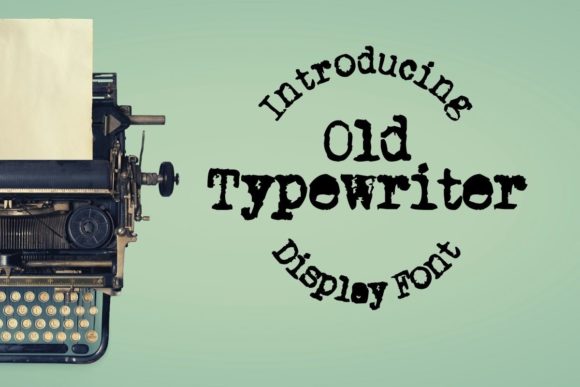
Old Typewriter Font: A Timeless Classic for Your Creative Projects
The Old Typewriter Font is a display font that has been crafted to evoke the nostalgia of a bygone era. With its authentic, vintage feel, this font is sure to add a unique touch to all your creative projects. Whether you’re a graphic designer, a writer, or simply someone who appreciates the aesthetic of old typewriters, this font is an incredible asset to have in your library.
The Charm of Old Typewriters
Old typewriters have a certain charm to them. They evoke memories of a time when writing was a more laborious process, but one that was also more personal and tactile. The sound of the keys clacking, the feel of the metal arms moving up and down, and the smell of the ink ribbon are all sensory experiences that are closely tied to the act of writing.
It’s no wonder that many people still romanticize old typewriters, even in this digital age. They represent a connection to the past, a time when writing was a more deliberate and considered process. And it’s this nostalgia that the Old Typewriter Font taps into, allowing you to bring a touch of vintage charm to your creative projects.
Authentic Vintage Feel
So, what sets the Old Typewriter Font apart from other fonts? The answer lies in its authentic, vintage feel. This font has been carefully crafted to mimic the look and feel of old typewriters, with all their quirks and imperfections.
From the subtle wear and tear on the letters to the slight inconsistencies in the font, every detail has been carefully considered to create a truly authentic look. Whether you’re using the font for a headline, a paragraph of text, or a simple caption, it’s sure to add a touch of nostalgia and character to your work.
Uses for Old Typewriter Font
So, what can you use the Old Typewriter Font for? The possibilities are endless, but here are a few ideas to get you started:
- Graphic Design Projects: Use the Old Typewriter Font to add a touch of vintage charm to your graphic design projects, such as brochures, posters, and flyers.
- Writing and Literature: Add a touch of nostalgia to your writing with the Old Typewriter Font. It’s perfect for authors, writers, and poets who want to give their work a unique and personal touch.
- Branding and Identity: Use the Old Typewriter Font to create a unique and memorable brand identity for your business or organization.
- Digital and Print Media: The Old Typewriter Font is perfect for use in digital and print media, such as magazines, newspapers, and online publications.
Benefits of Using Old Typewriter Font
So, why should you choose the Old Typewriter Font for your creative projects? Here are just a few benefits:
- Unique and Memorable: The Old Typewriter Font is a unique and memorable font that will help your work stand out from the crowd.
- Authentic Vintage Feel: The font’s authentic vintage feel will add a touch of nostalgia and character to your work.
- Versatile: The Old Typewriter Font is versatile and can be used for a wide range of creative projects.
- Easily Readable: Despite its vintage feel, the Old Typewriter Font is easily readable, even at small sizes.
Tips for Using Old Typewriter Font
Here are a few tips for using the Old Typewriter Font effectively:
- Use it Sparingly: Use the Old Typewriter Font sparingly to add a touch of vintage charm to your work. Overusing the font can make it look cluttered and overwhelming.
- Pair it with Other Fonts: Pair the Old Typewriter Font with other fonts to create a unique and interesting contrast.
- Experiment with Colors: Experiment with different colors to find the perfect combination that complements the Old Typewriter Font.
The Old Typewriter Font is a timeless classic that will add a touch of vintage charm to all your creative projects. With its authentic, vintage feel and versatile design, it’s the perfect font for anyone looking to add a unique and memorable touch to their work.
Whether you’re a graphic designer, a writer, or simply someone who appreciates the aesthetic of old typewriters, the Old Typewriter Font is an incredible asset to have in your library. So why not give it a try and see how it can elevate your creative projects to the next level?